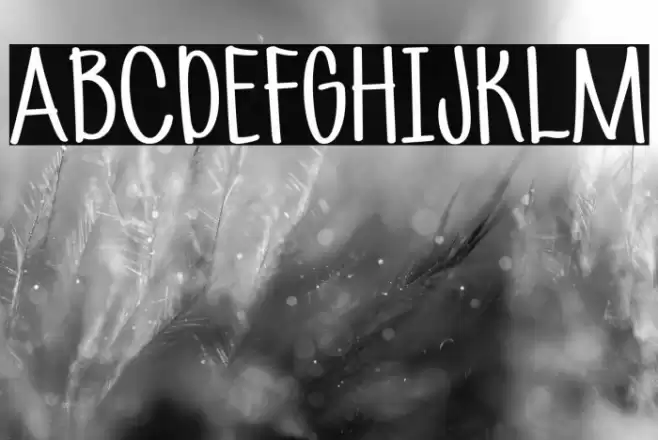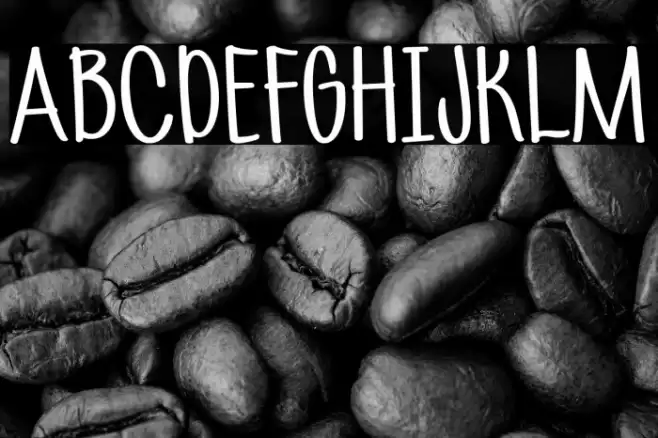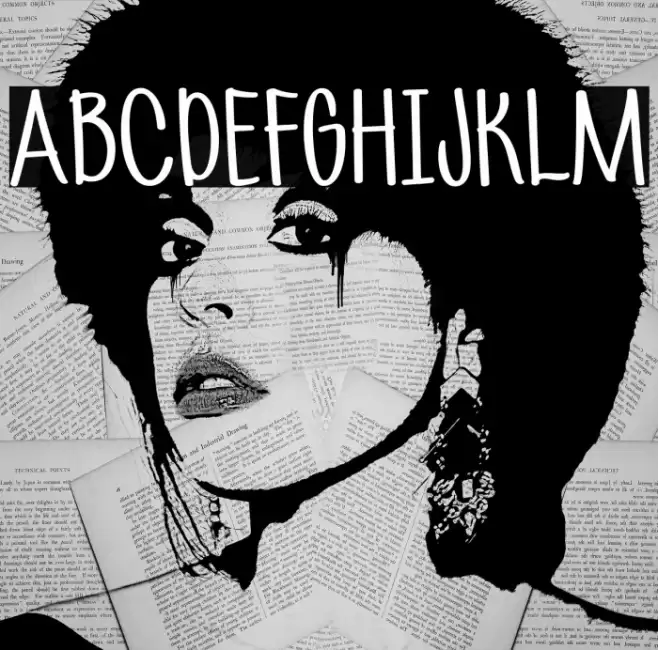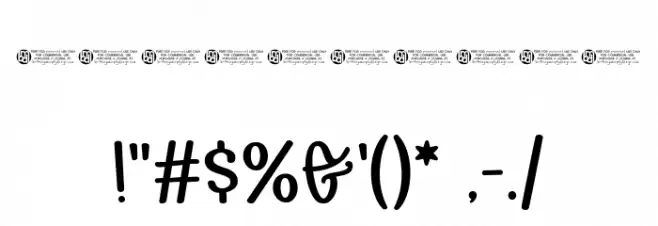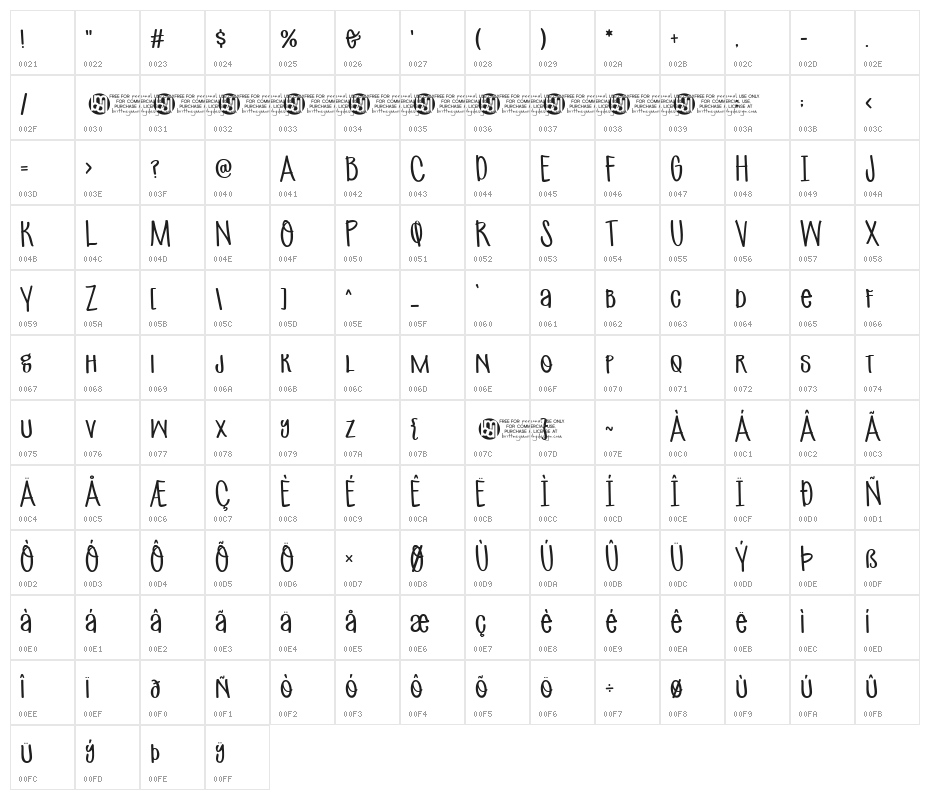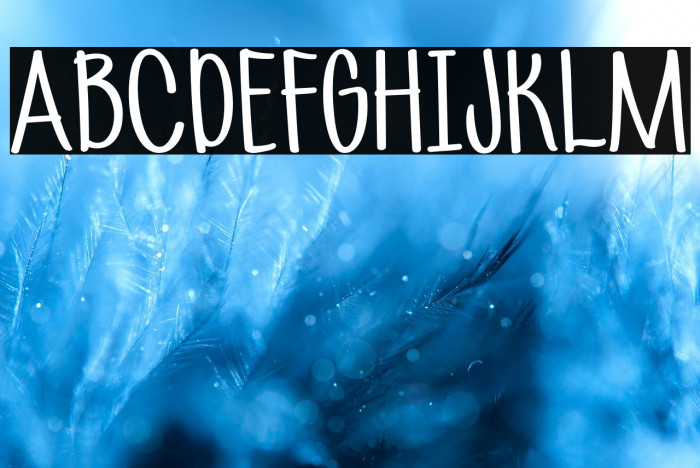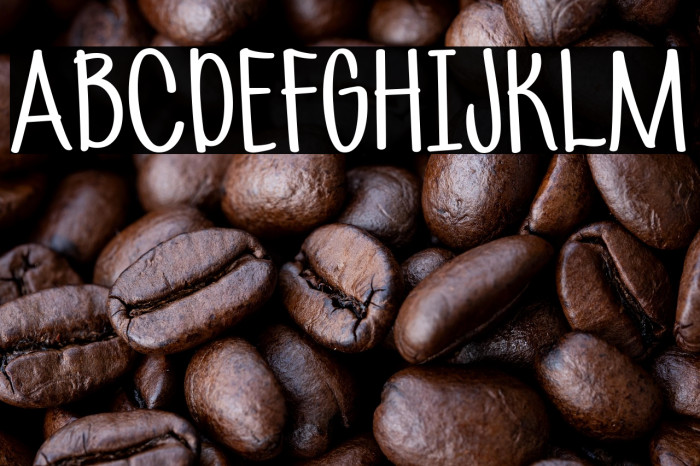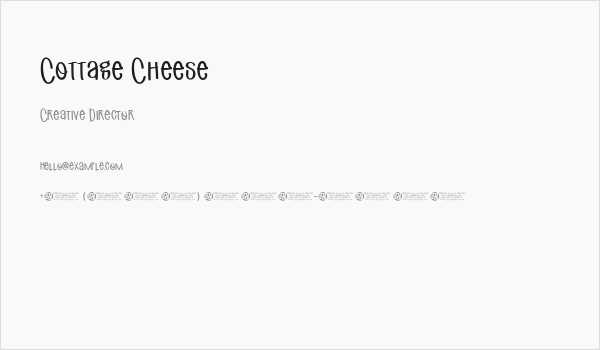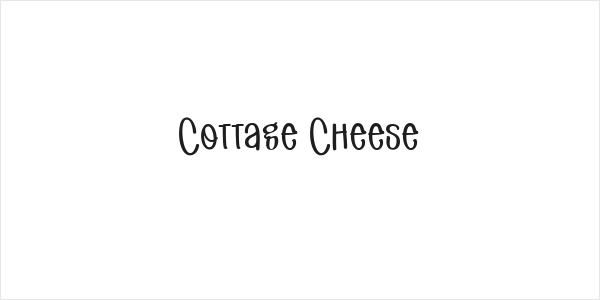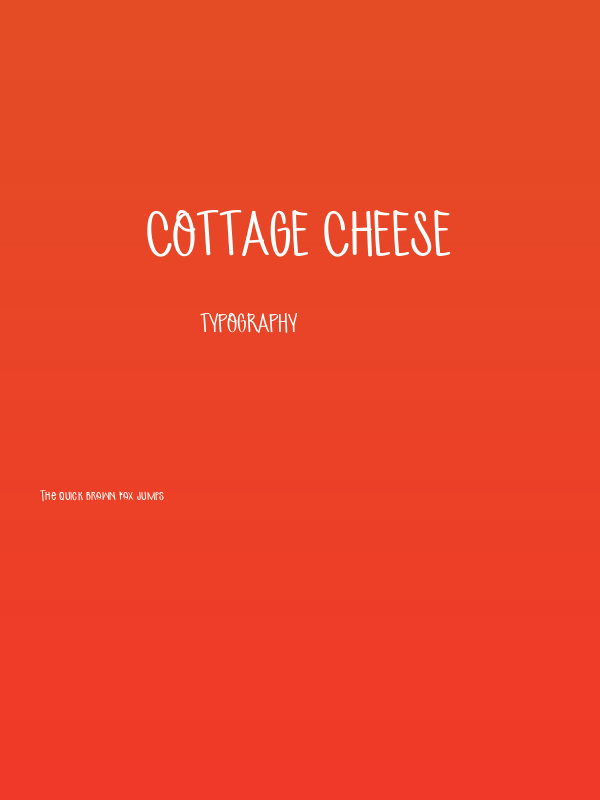
Cottage Cheese Font
Cottage Cheese Description
This font features a playful and whimsical design with a handwritten style. The characters are slightly irregular, giving it a casual and friendly appearance. The strokes are consistent in thickness, providing a uniform look across all letters. The uppercase and lowercase letters maintain a cohesive style, with rounded edges and a slight tilt that adds to its charm. The numerals and special characters are designed to match the overall aesthetic, making it versatile for various uses. Its informal nature makes it suitable for creative projects that require a touch of personality.
A playful, handwritten font with a whimsical and casual style from Uncategorized fonts.
- Font: Cottage Cheese
- Proposed Projects: Ideal for greeting cards, children's books, playful branding, and social media graphics.
- Overall Style: Casual
- Use Case: Headlines, Logos, Informal Text